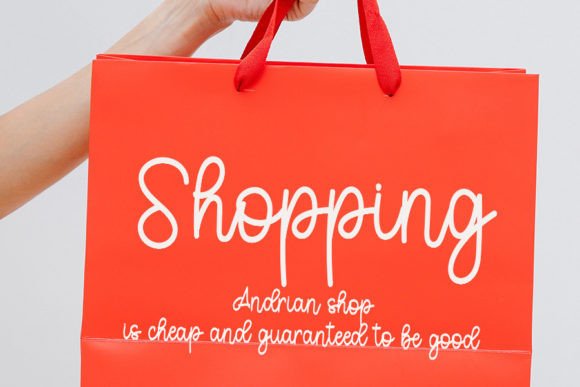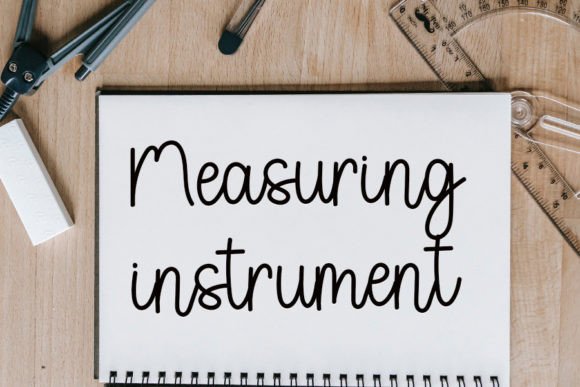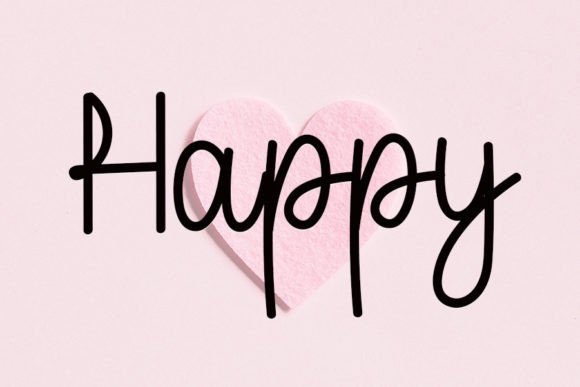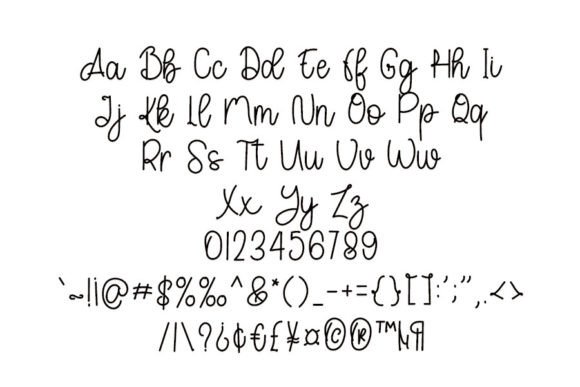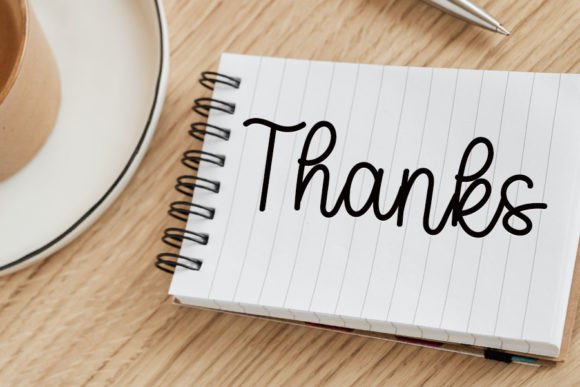
Paradise Font
Add a cute and charming touch with the Paradise font. This handwritten script is carefully designed with balanced strokes — not too thin, not too thick. It enhances the beauty of your creative projects.
The Paradise font works well for many design needs. You can use it for greeting cards, branding, social media posts, invitations, posters, and more. Its varied style adds warmth and personality.
Each letter is crafted with care, featuring smooth, flowing lines. This creates a polished and inviting look. The font combines style with readability, making it ideal for headlines, logos, quotes, and decorative text.
Despite its delicate style, the Paradise font remains readable at various sizes. Whether used for bold titles or subtle details, it adapts perfectly to your design needs.
Using this font will make your projects stand out. It adds a friendly and elegant vibe. If you want your designs to look professional yet warm, the Paradise font is an excellent choice.